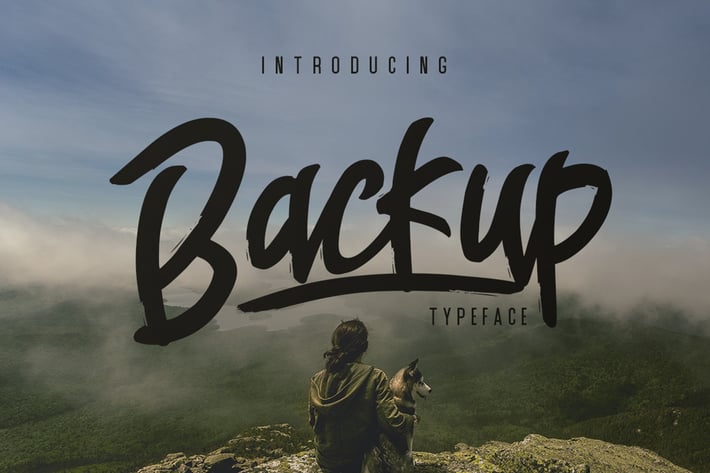
Backup Typeface
Backup Typeface A handmade typeface that inspired from hand-drawn lettering and vintage style, suitable for your awesome works (Brands, Poster, Logo, Advertisement, etc)
upper & lower case
Ligatures
Alternate